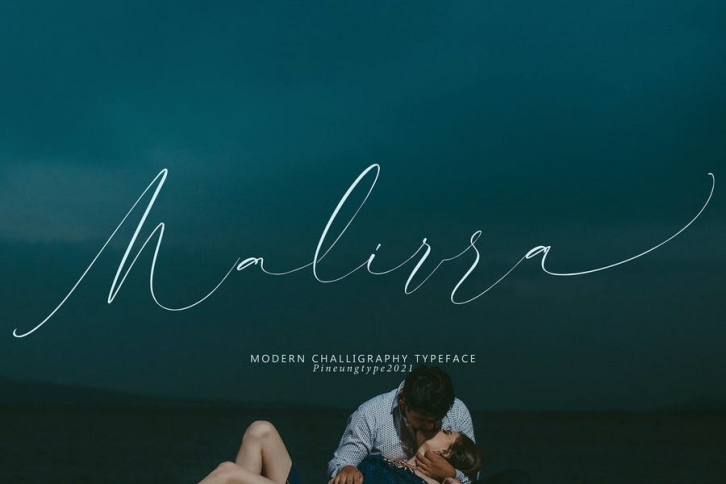
Malirra font with new style, this font will perfect for many different project ex: quotes, logo, blog header, poster, banding, letter, invitation, stationery, etc...